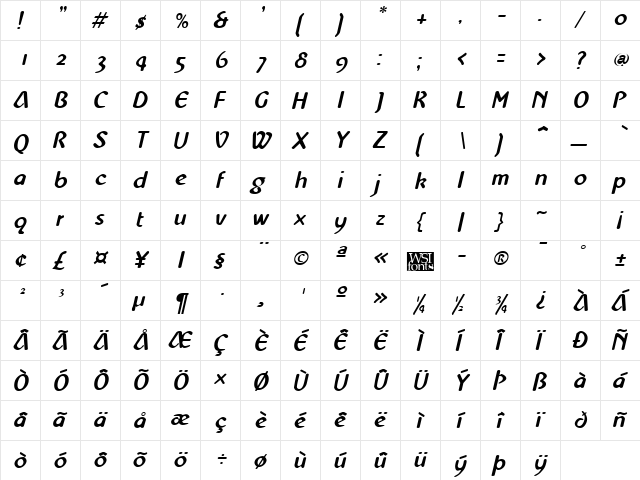
Westminster Italic Font Preview
Westminster Italic
Westminster Italic Font Details
Design Context for Westminster Typeface
Westminster is a composed and adaptable typeface that performs quietly and consistently across a wide range of design contexts. The slanted form adds forward momentum and visual energy.